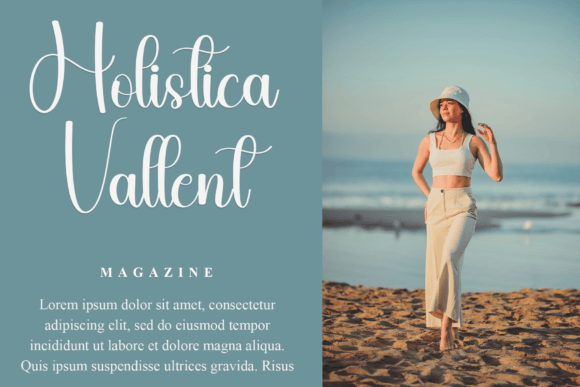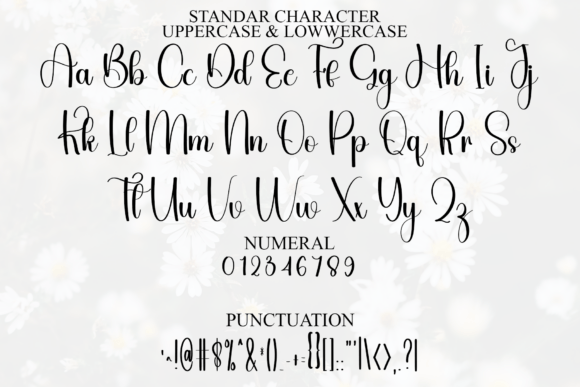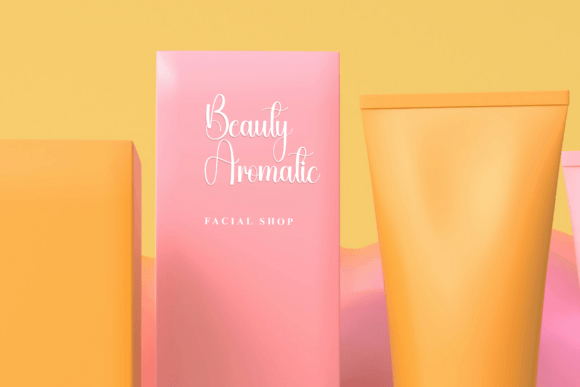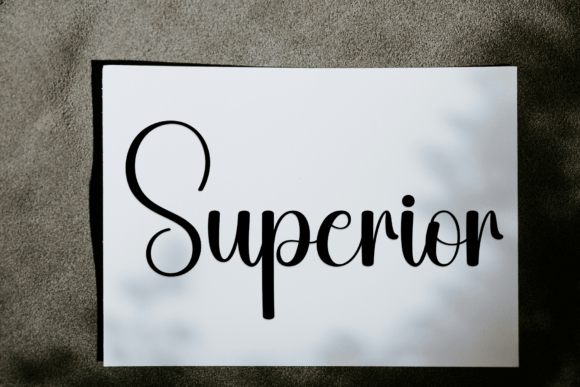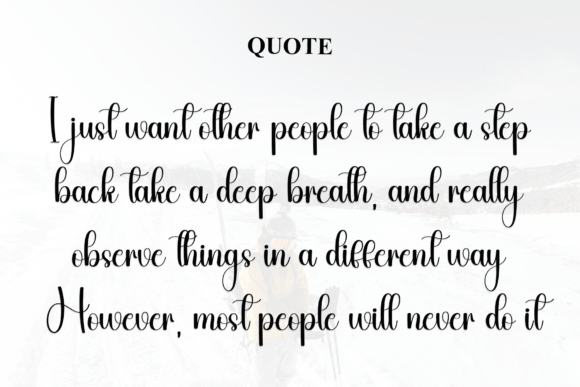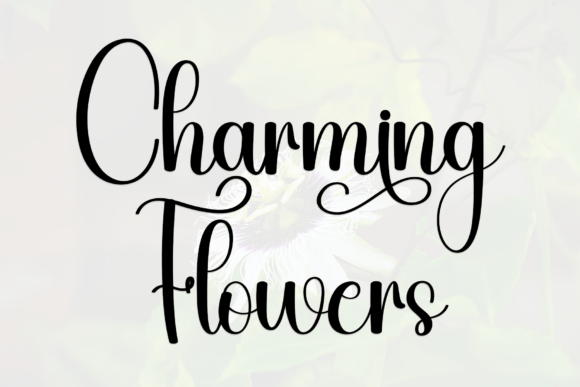
Introducing Flourish Font: The Ultimate Holiday Typeface
Are you looking for a font that embodies the spirit of the holiday season? Do you want to add a touch of magic to your designs and make them stand out from the crowd? Look no further than Flourish Font, a festive and merry typeface that is sure to bring joy and cheer to your projects.
A Festive and Whimsical Typeface
Flourish Font is a decorative typeface that is specifically designed to capture the essence of the holiday season. With its intricate details and whimsical flair, this font adds a touch of enchantment to any design. Whether you’re creating greeting cards, gift tags, or holiday-themed projects, Flourish Font is the perfect choice to bring a cheerful and nostalgic ambiance to your words.
Flourish Font is a versatile typeface that is perfect for designers and crafters alike. Its decorative elements and festive spirit make it ideal for a wide range of projects, from holiday-themed invitations and greeting cards to gift tags and wrapping paper. With Flourish Font, you can add a personal touch to your designs and make them truly special.
What You Can Create with Flourish Font
With Flourish Font, the possibilities are endless. Here are just a few ideas to get you started:
- Holiday greeting cards and invitations
- Gift tags and wrapping paper
- Holiday-themed social media graphics and posts
- Festive flyers and brochures
- Personalized holiday gifts, such as ornaments and decorations
Why Choose Flourish Font?
So why choose Flourish Font over other holiday-themed typefaces? Here are just a few reasons:
- Unique and decorative design that stands out from the crowd
- Versatile and perfect for a wide range of projects
Tips for Using Flourish Font
Here are a few tips for getting the most out of Flourish Font:
- Experiment with different font sizes and colors to add visual interest to your designs
- Use the glyphs and ligatures to add a personal touch to your projects
- Combine Flourish Font with other fonts to create a unique and eye-catching design
- Don’t be afraid to get creative and try new things – Flourish Font is designed to be versatile and easy to use
Flourish Font is a truly special typeface that is sure to bring a touch of magic to your designs. With its festive and whimsical design, PUA encoding, and versatility, it’s the perfect choice for designers and crafters alike. Whether you’re creating holiday-themed projects or just want to add a personal touch to your designs, Flourish Font is a great choice. So why wait? Download Flourish Font today and let your typography shine with the magic of this beautiful font!